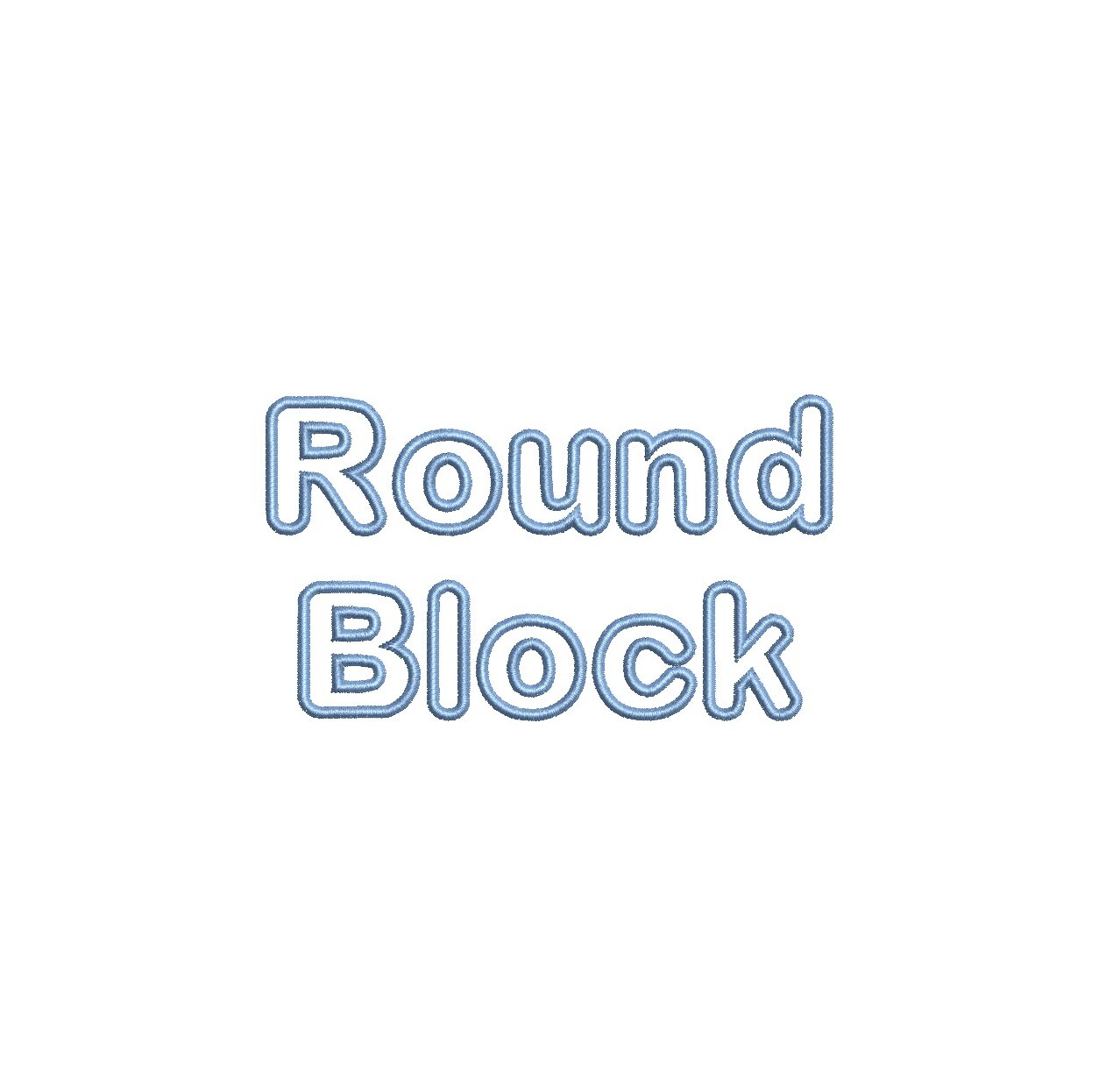
Elevate your embroidery game with the Round Block Outline ESA font, now seamlessly compatible with Wilcom Studio e4.5.6 and Hatch 3 versions and beyond. This font brings a classic yet bold look to your projects, making it perfect for logos, monograms, and projects requiring clear, striking text. Its meticulous outlines ensure crisp, professional results, while easy integration into your preferred embroidery software streamlines your workflow. With the Round Block Outline ESA font, your designs exude timeless elegance and visual impact. Take your digitization skills to new heights and craft embroidery that demands attention. Make this font your go-to tool for creating standout designs.